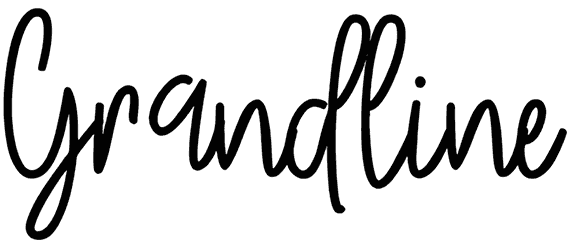
Afontros Font
Afontros is a nice organic font that will give your digital artwork a relaxed vibe. Even though the characters in this handwritten font are unreadable, it is still widely used for writing, invitations, greeting cards, and even clothes due to the striking visual style it imparts.
If you’re up for a challenge and your client is, too, try your hand at this script font, you just might surprise them with the end result.